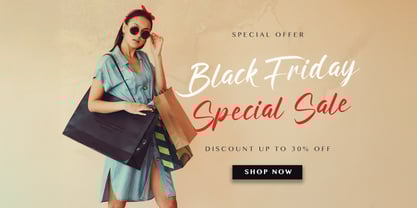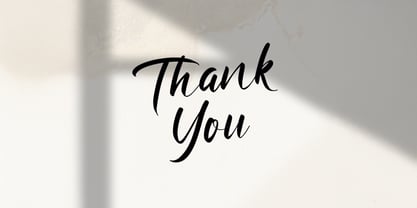
Ratri Volutten
by Stringlabs Creative Studio
The Ratri Volutten Font Family was designed by Virgiawan Listanto and published by Stringlabs Creative Studio. Ratri Volutten contains 1 styles.
Ratri Volutten is a graceful handwritten font that blends elegance with artistic flair. With its fluid strokes and subtle character, this font captures the essence of handwritten beauty perfect for adding a personal and sophisticated touch to any design.
Designers: Virgiawan Listanto
Publisher: Stringlabs Creative Studio
Foundry: Stringlabs Creative Studio
Design Owner: Stringlabs Creative Studio